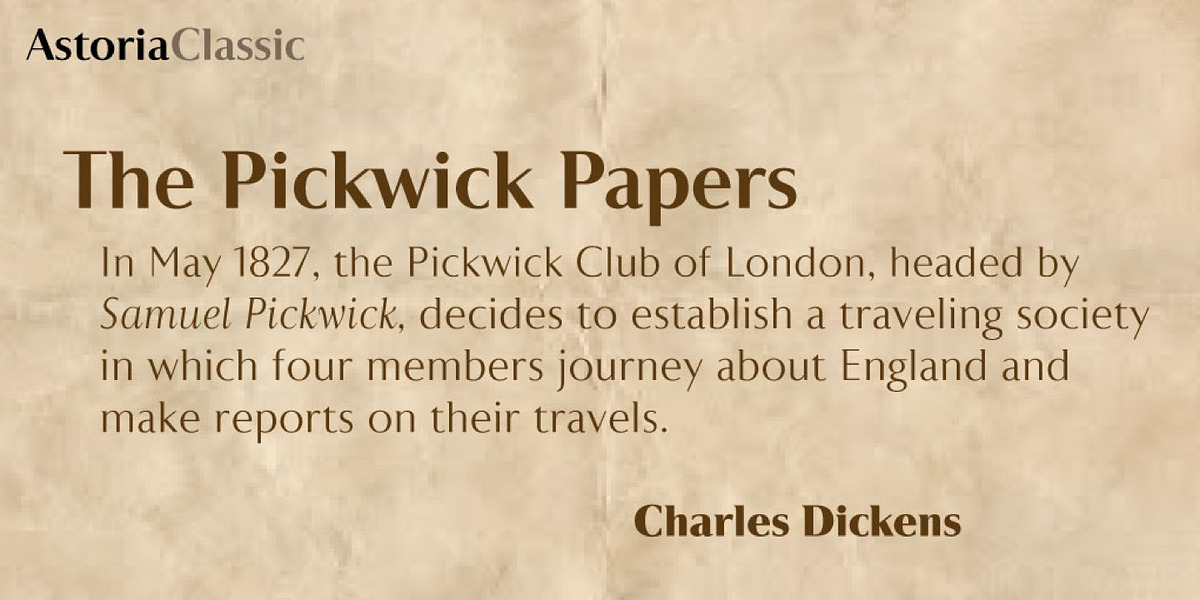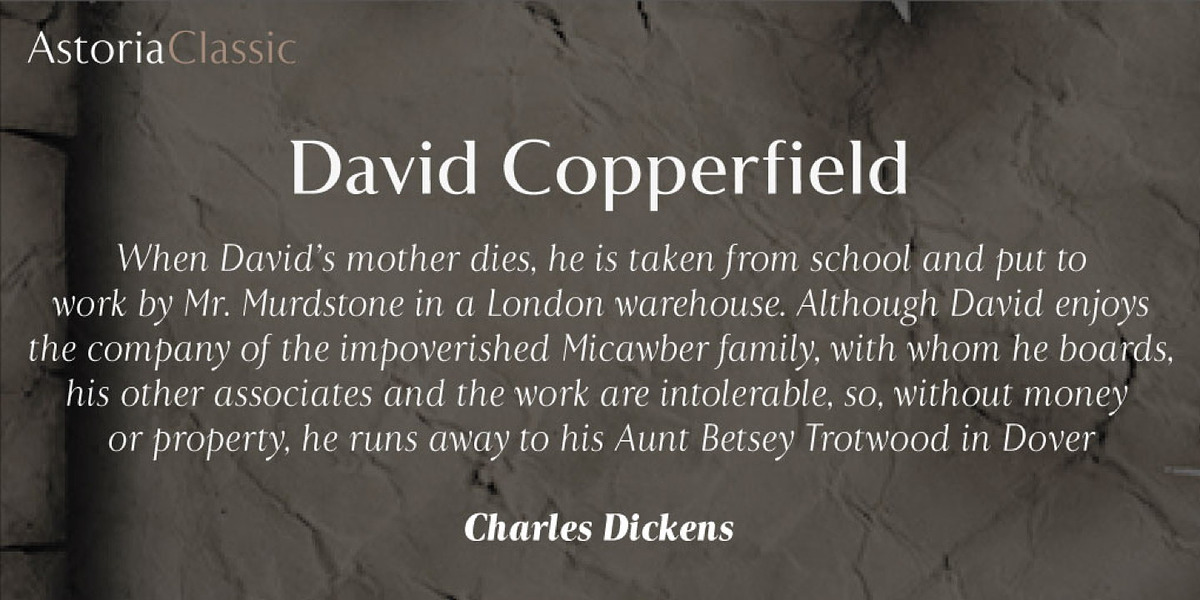
Astoria Classic
Astoria Classic is a humanist sans serif font designed specifically for text but also suitable for headlines. It features subtle serifs, giving it a unique character that sits between a traditional Roman and a modern sans serif. The italics have an old-style form with a contemporary look.